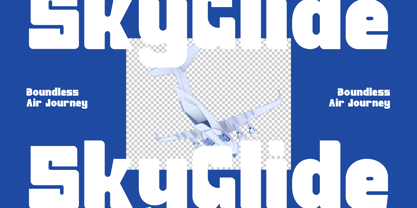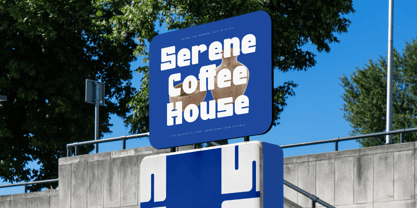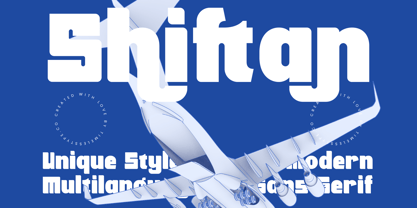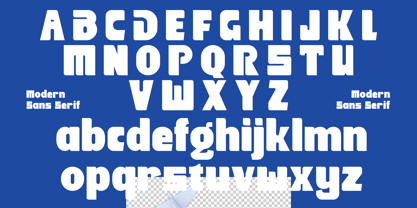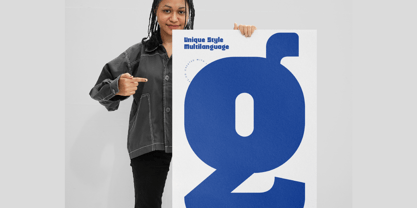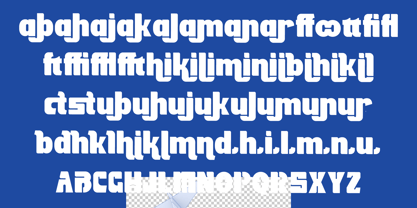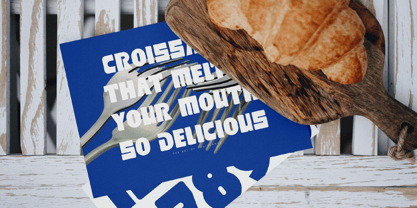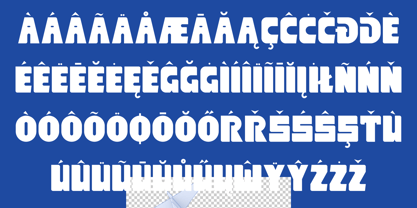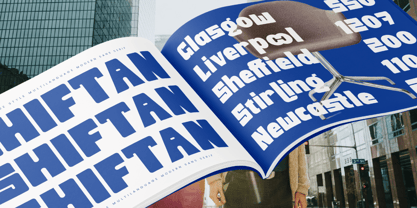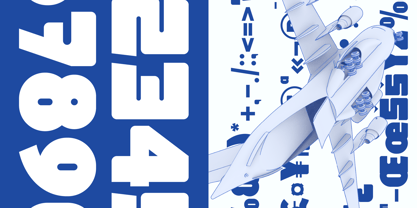
Shiftan
The Shiftan Font Family was designed by Heru Utama Putra and published by Timelesstype Studio. Shiftan contains 2 styles and family package options.
Shiftan - Modern Sans Serif Font , from Timelesstype, Suitable for any projects such as: logos, branding projects, homeware designs, product packaging, mugs, quotes, posters, shopping bags, t-shirts, book covers, name card, invitation cards, greeting cards, label, photography, watermark, special events, and all your other luxury and beautiful projects that need a Luxury Serif taste.